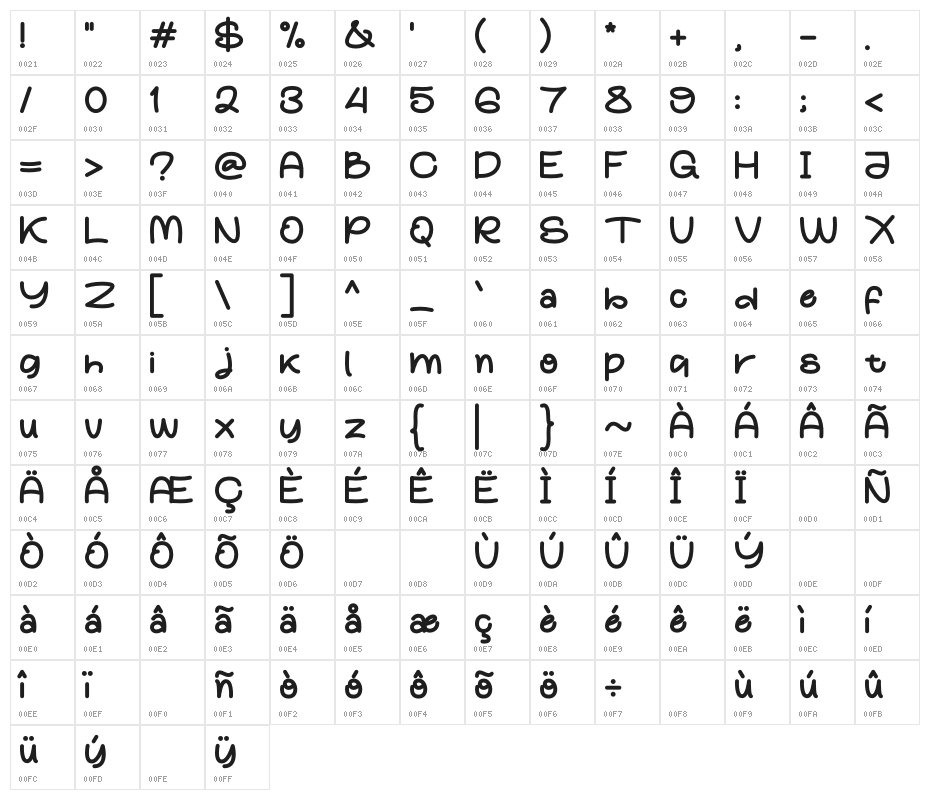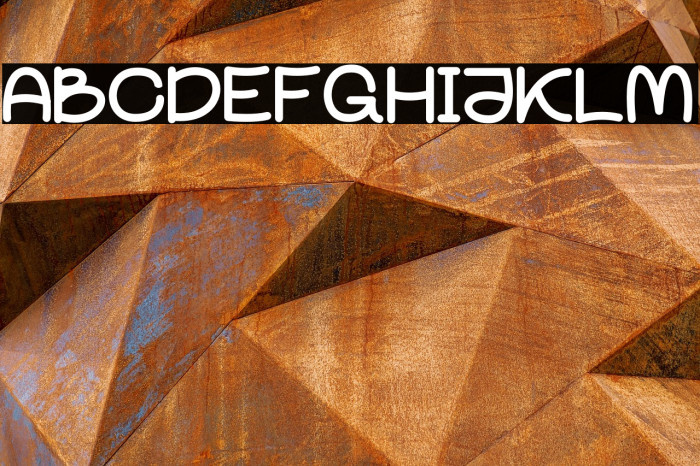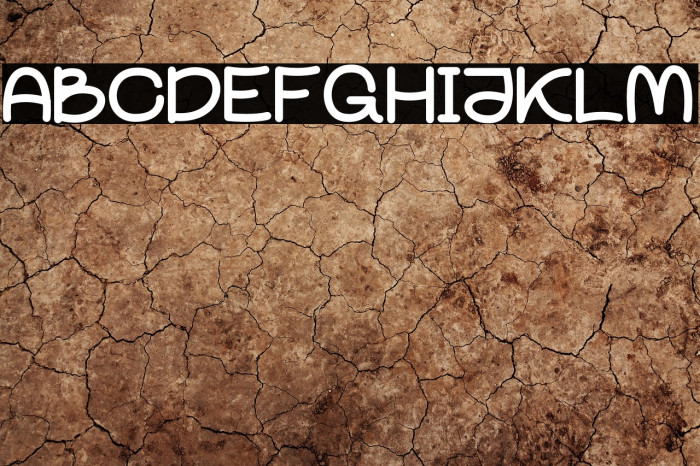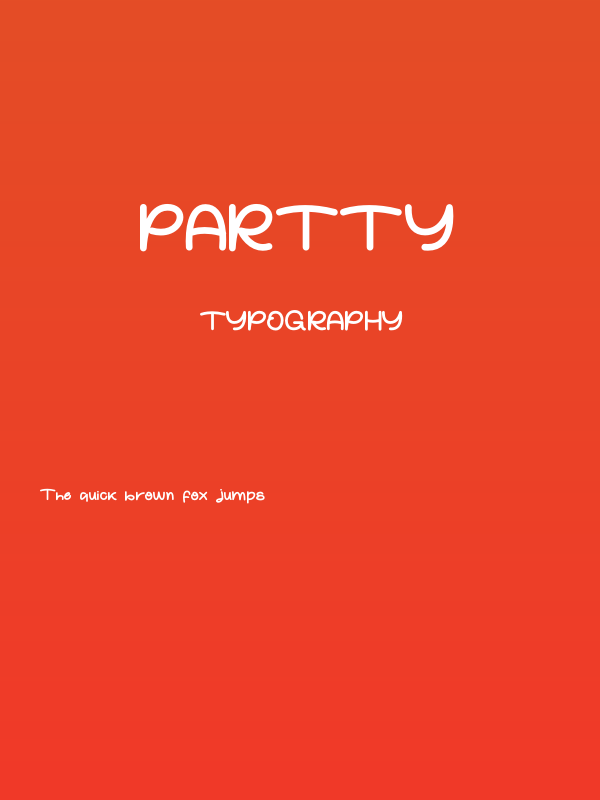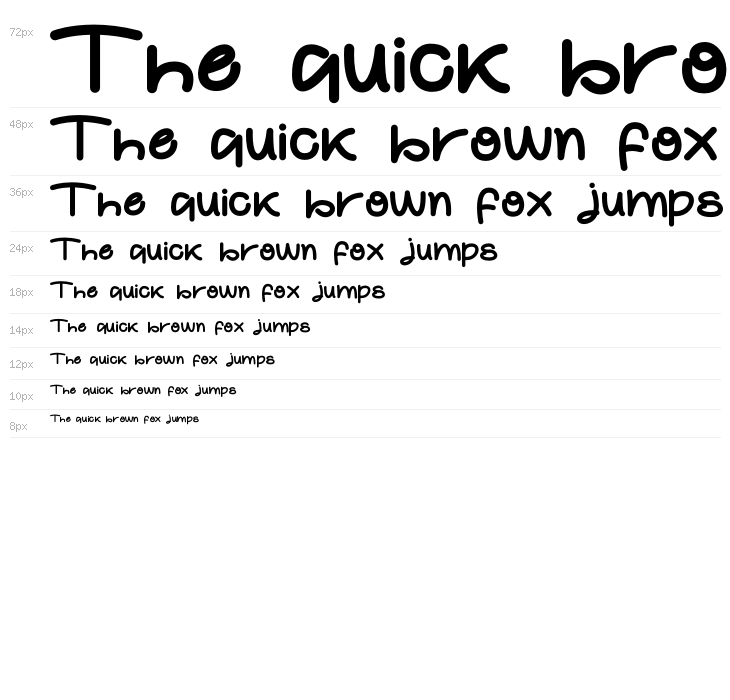
Partty Font
Partty Description
This playful and rounded font exudes a sense of fun and whimsy, making it ideal for projects that require a lighthearted and approachable feel. The characters are bold and slightly irregular, with a hand-drawn quality that adds to its charm. The uppercase and lowercase letters maintain a consistent style, with smooth curves and a friendly appearance. The numbers and special characters are equally well-crafted, ensuring versatility across different design needs. This font is perfect for children's books, party invitations, and any creative project that aims to capture a joyful and energetic vibe.
| Overall Style | Playful, Whimsical |
| Use Case | Headlines, Logos, Invitations |
| Proposed Projects | Children's books, party invitations, playful branding, creative posters. |